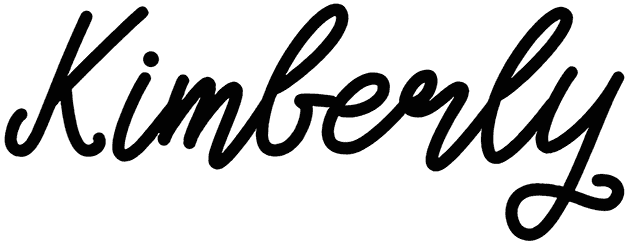
Kimberly Font
This offer is able to add a modern and natural visual to your design and impress your followers. The letters of this handwritten font are smooth and cursive, and you can use them for different texts. Kimberly font is an apt pick for many designs, such as a travel postcard, a daily Instagram story, and so forth.